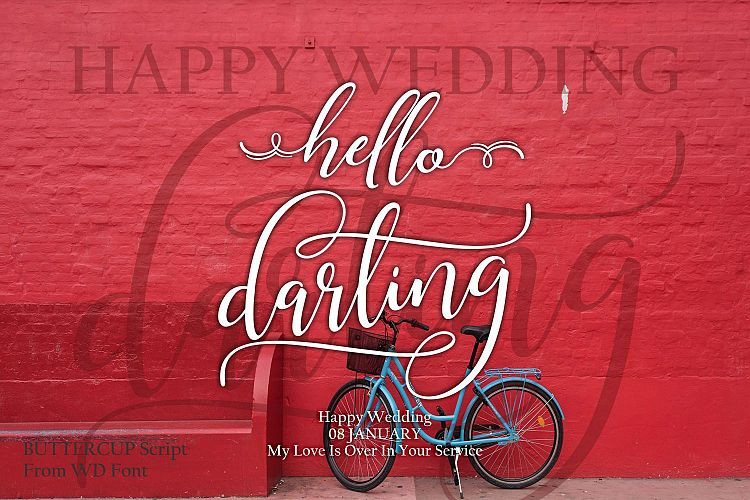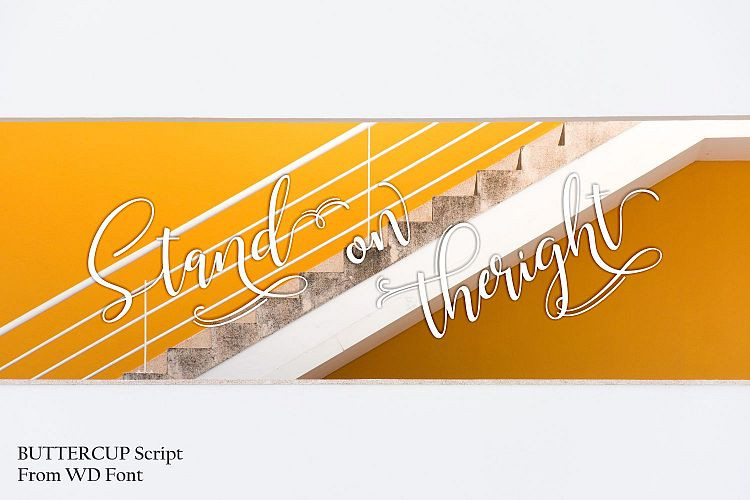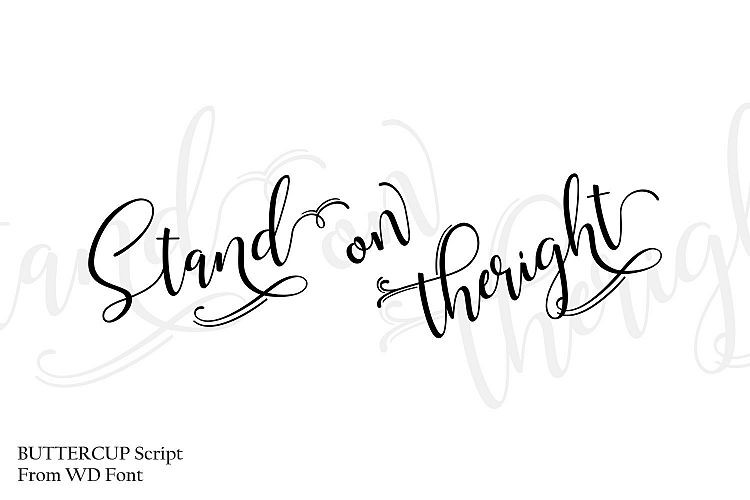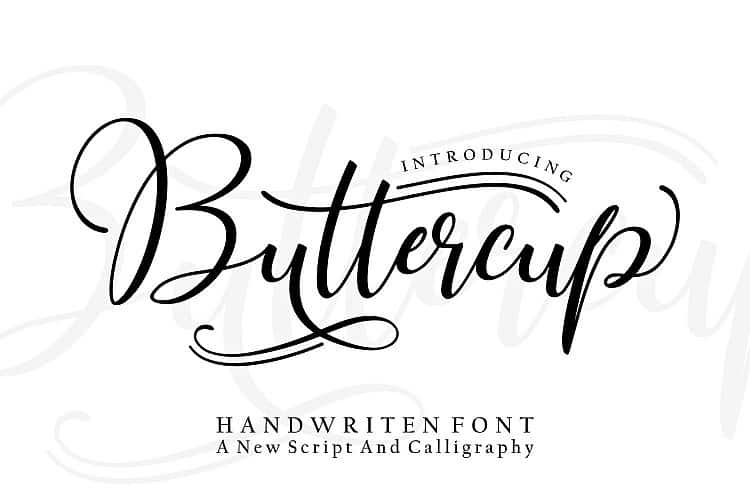
Buttercup Handwritten Font
This is a new fresh & modern script with a handmade calligraphy style, decorative characters and a dancing baseline! Introducing Buttercup Font. Buttercup Handwritten Font is a beautiful, smooth handwritten font that is a modern beautiful typeface. It’s perfect for feminine, elegant, and luxurious designs. It has a fresh and modern look which can be used for Invitations, greeting cards, branding materials, quotes, posters, and much more.